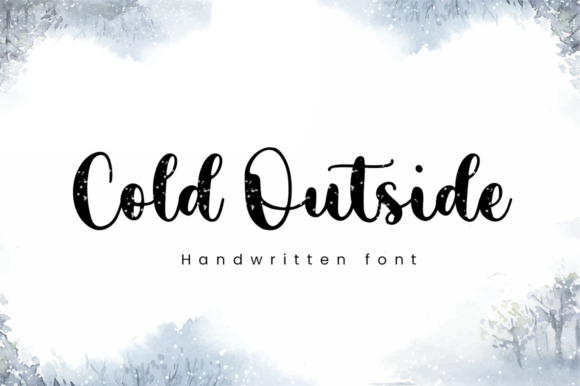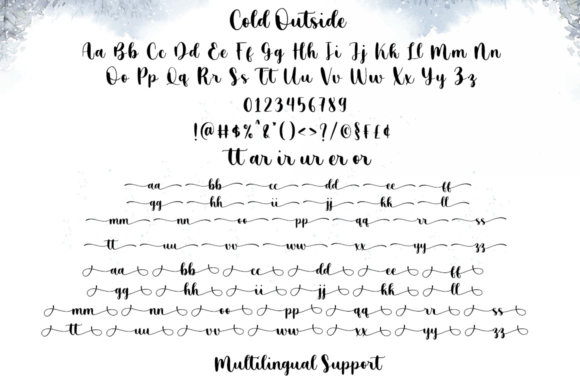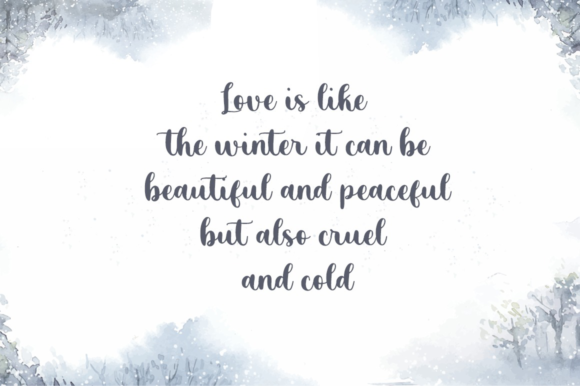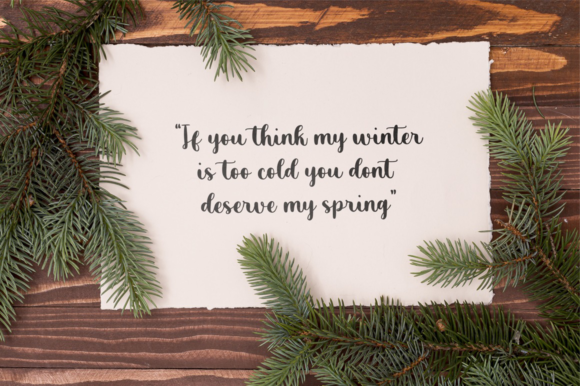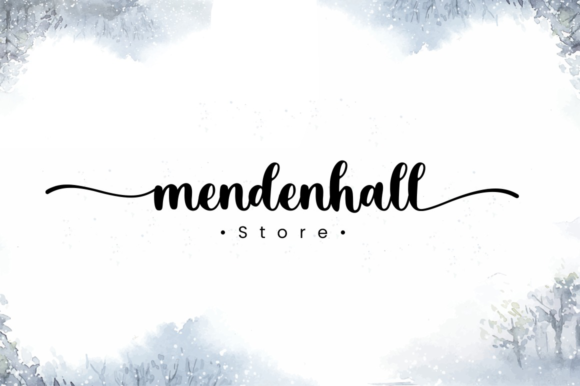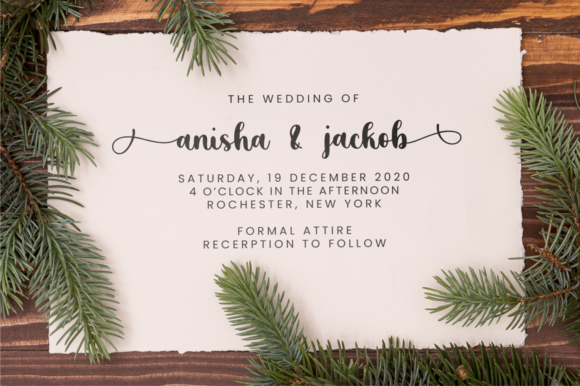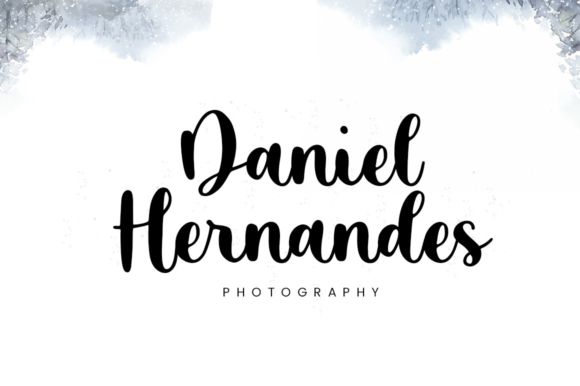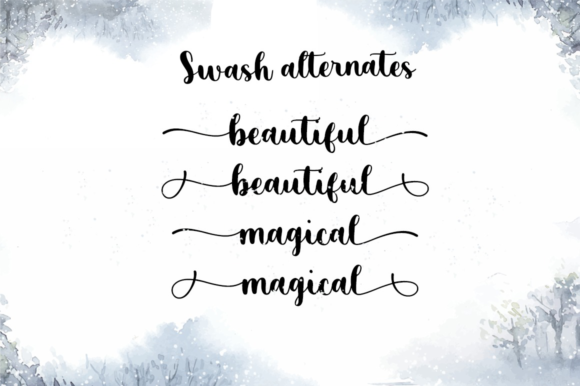
About Cold Outside Font
Cold Outside is a stylish and delicate font. It has a clean, trendy and smooth vibe and it will be a hit for any design that you want to add it to.